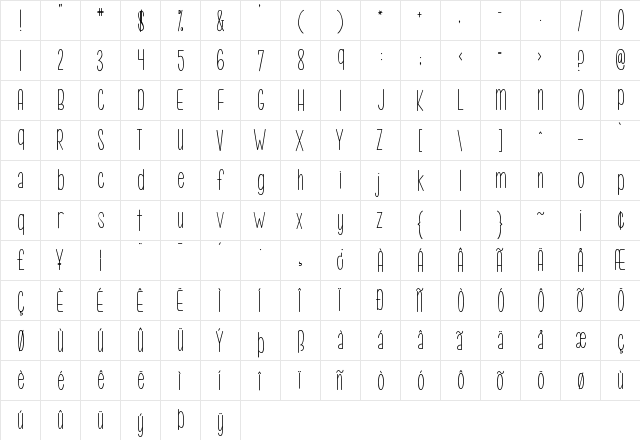
KG Call Me Maybe Regular
| Foundry | Kimberly Geswein |
| Designer | Kimberly Geswein |
Design Context for KG Call Me Maybe Typeface
KG Call Me Maybe takes a measured approach to typography — its balanced proportions and neutral character make it a reliable workhorse for both digital and print work.